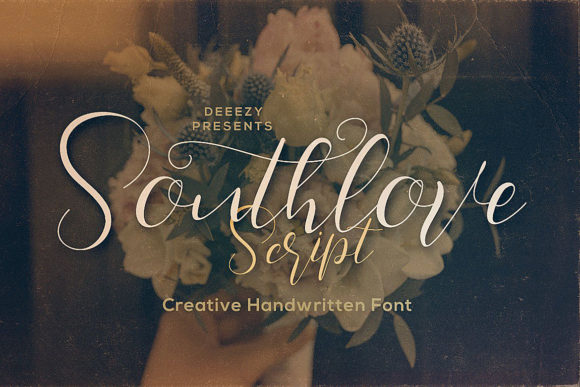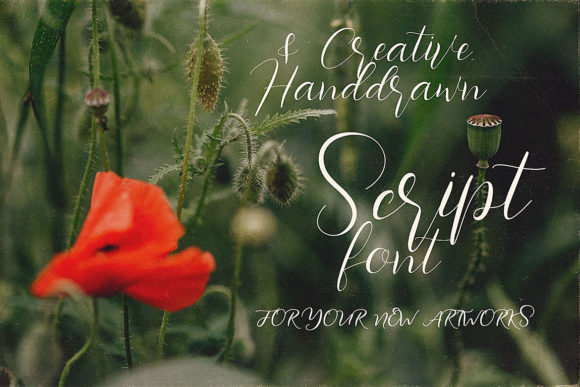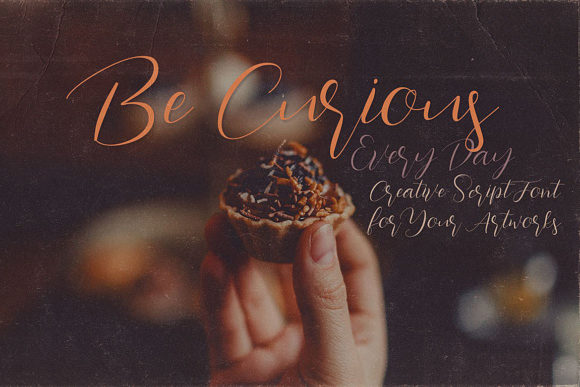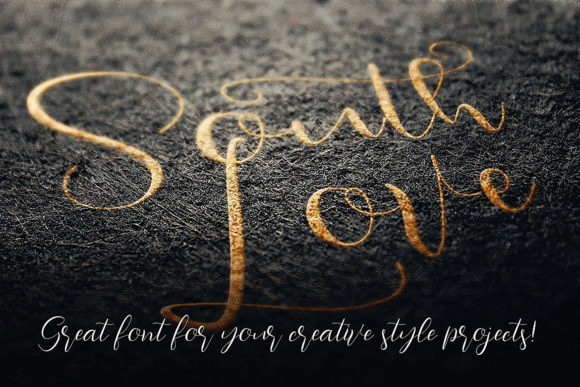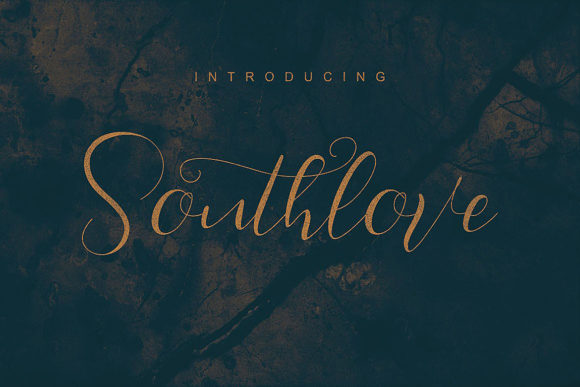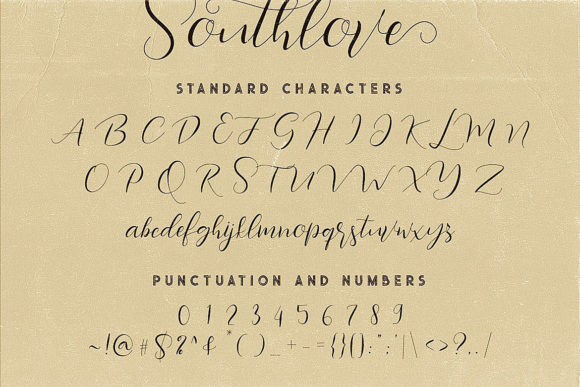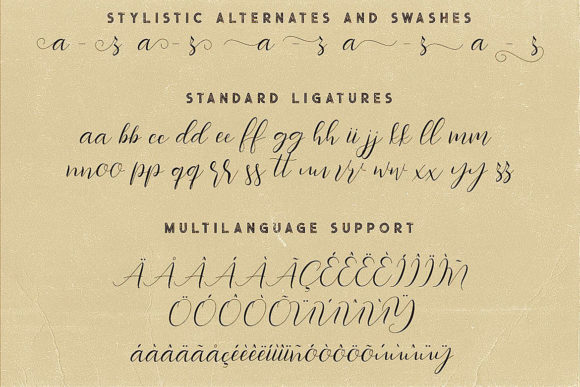
Southlove Script Font
About Southlove Script Font
The Southlove is an elegant calligraphy script. It has thin lines and a dancing baseline which is perfect for adding an luxurious feel to your designs.